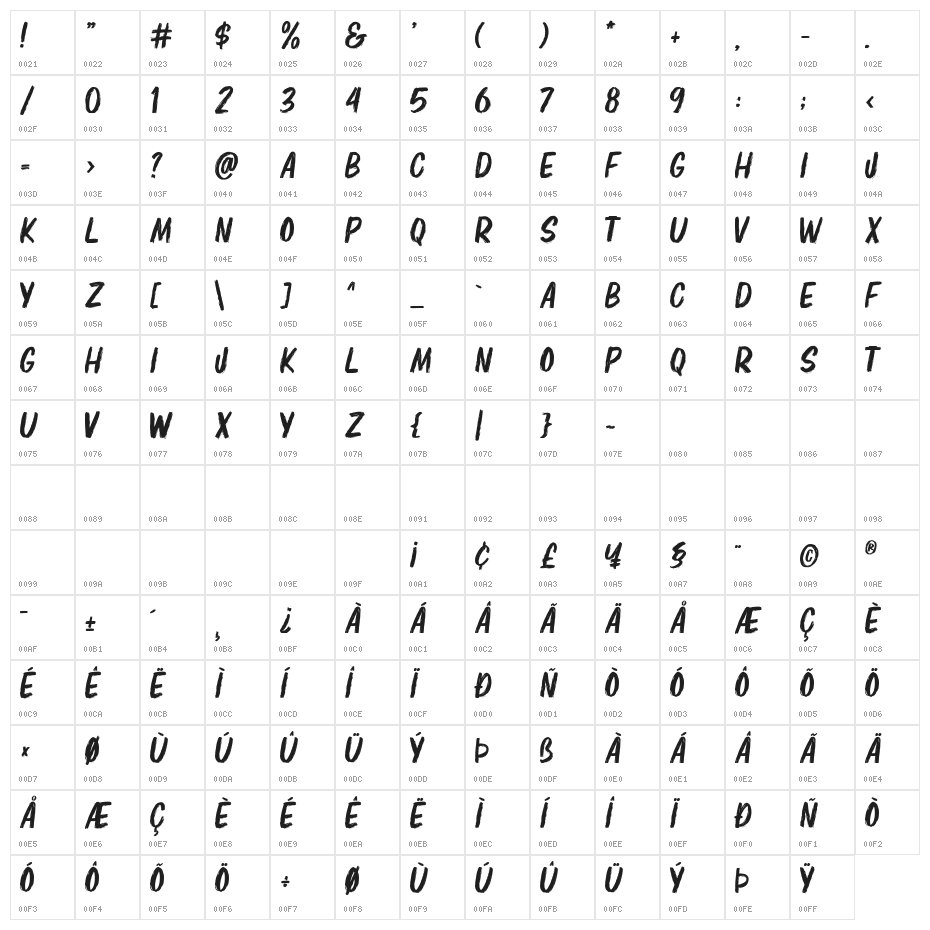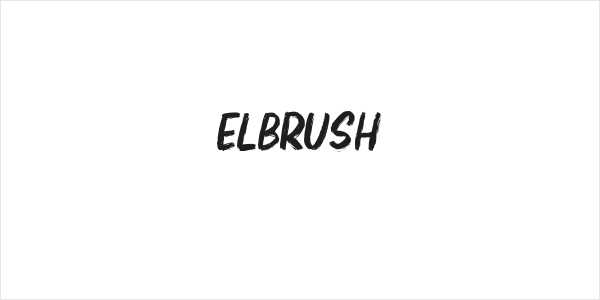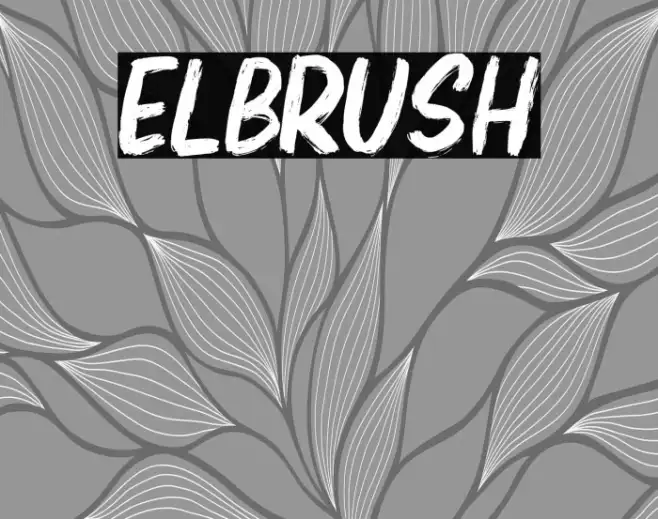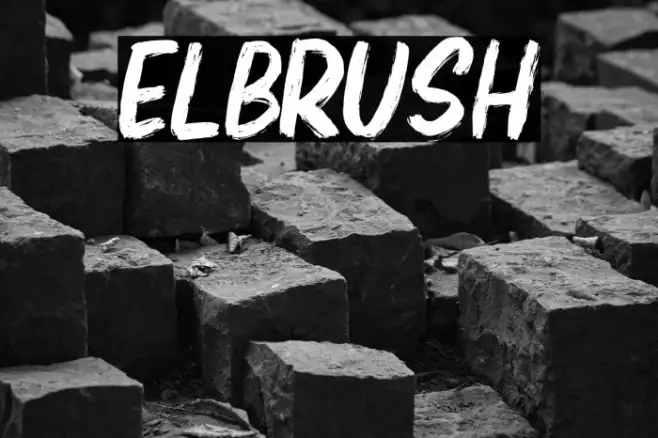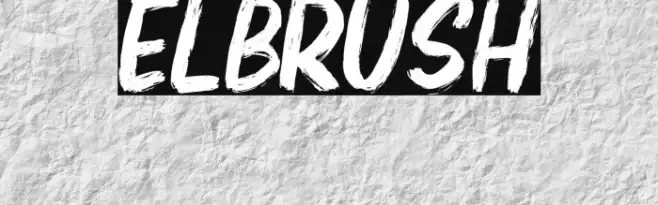
Elbrush Font
Elbrush Description
This font exudes a bold, energetic, and expressive style, reminiscent of brush strokes with a raw and dynamic feel. The characters are crafted with a sense of movement, featuring uneven edges and varying thickness that mimic the natural flow of hand-painted letters. This gives it a lively and artistic appearance, perfect for projects that require a personal touch. The uppercase and lowercase letters maintain a consistent style, while the numbers and special characters integrate seamlessly, offering versatility. The font's unique texture and bold presence make it stand out, ideal for creative and impactful designs.
| Use Case | Headlines, Logos, Artistic designs |
| Proposed Projects | Ideal for posters, branding, social media graphics, and artistic projects. |